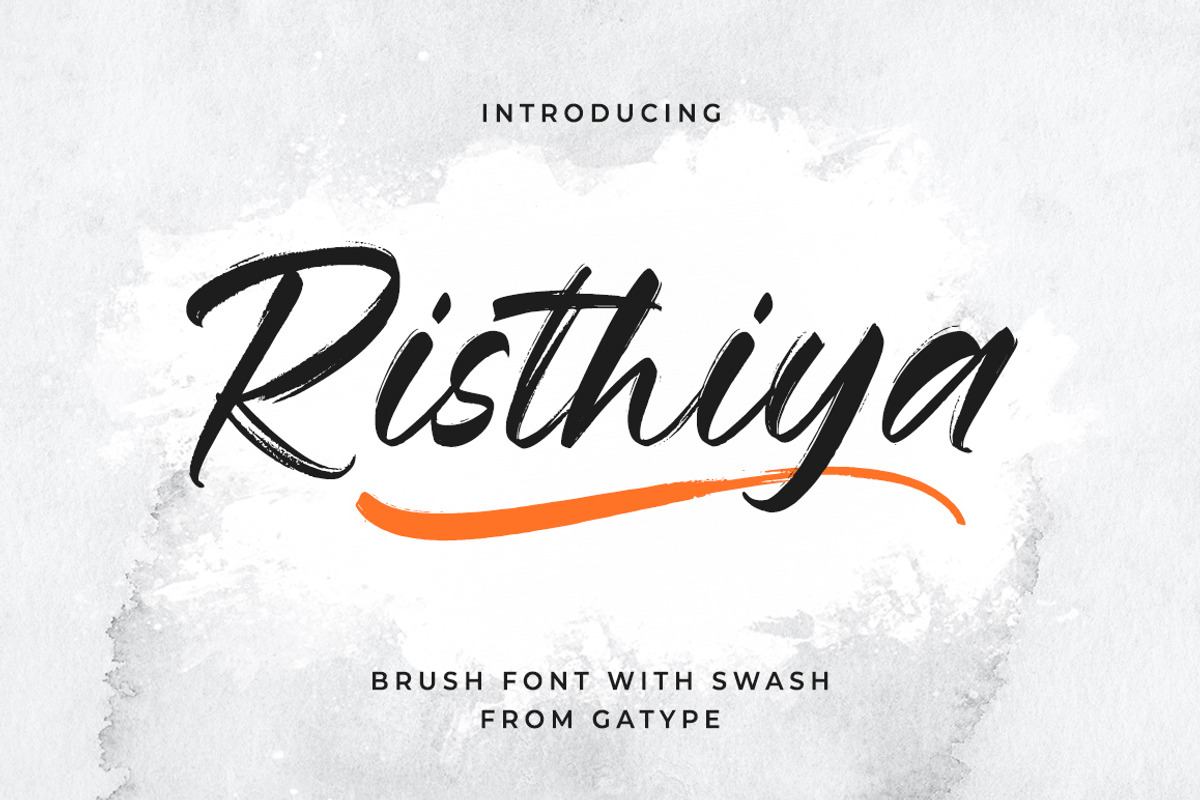
Please note that you must purchase this font for commercial use. You can download Risthiya Brush Font for free, strictly for personal testing purposes only. Risthiya Brush is a bold and expressive handwritten brush font that brings energy, personality, and artistic flair to your designs. With textured strokes, natural flow, and a hand-painted appearance, Risthiya Brush Font Free Download is perfect for logos, posters, apparel, product packaging, branding, and social media graphics that need a raw, creative edge.
This font captures the authenticity of real brush lettering—perfect for adding emotion and movement to your typography. It includes uppercase and lowercase letters, numerals, punctuation, and multilingual support, giving designers full creative flexibility.
Whether you're designing bold headlines or crafting eye-catching visuals, Risthiya Brush adds a punch of artistic power and personality.